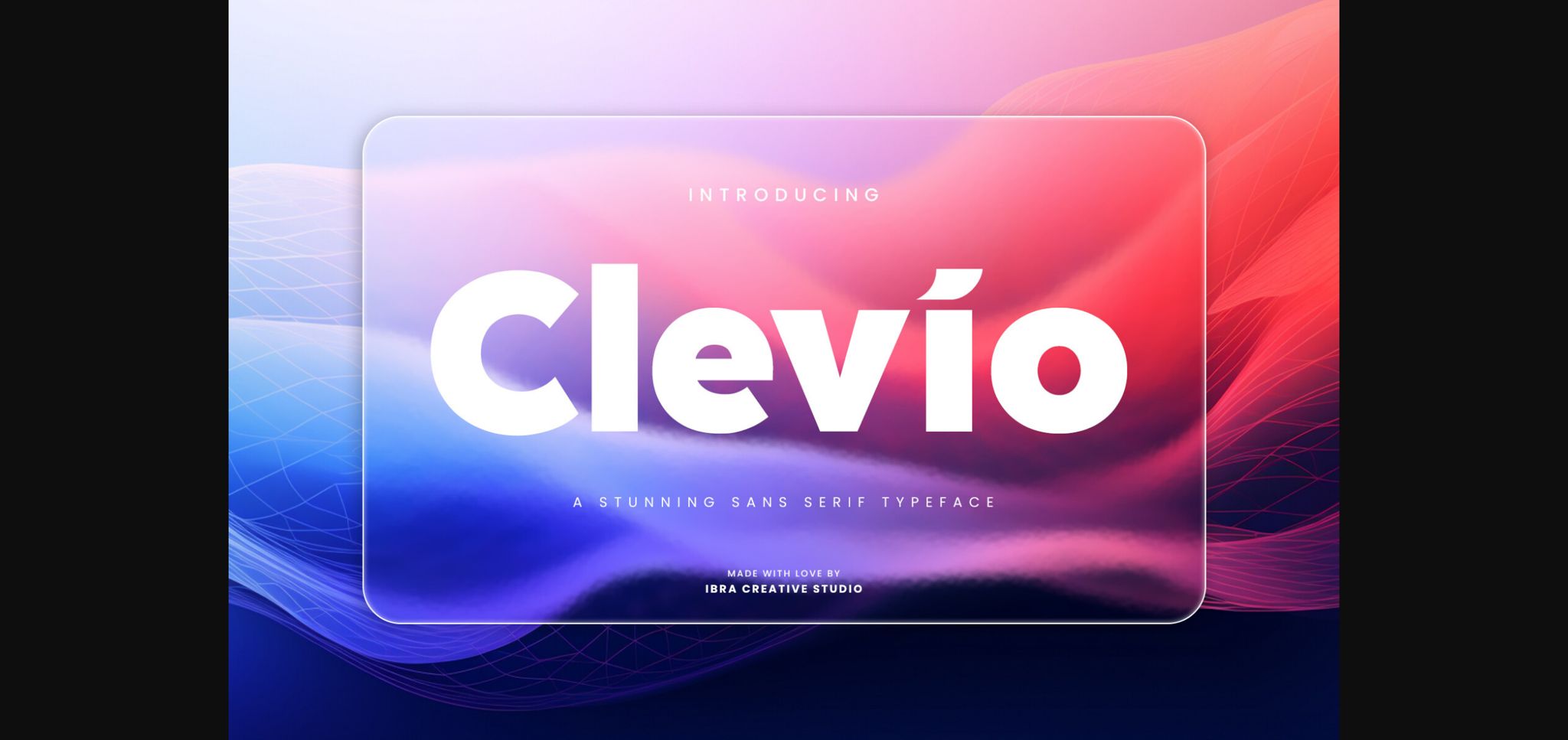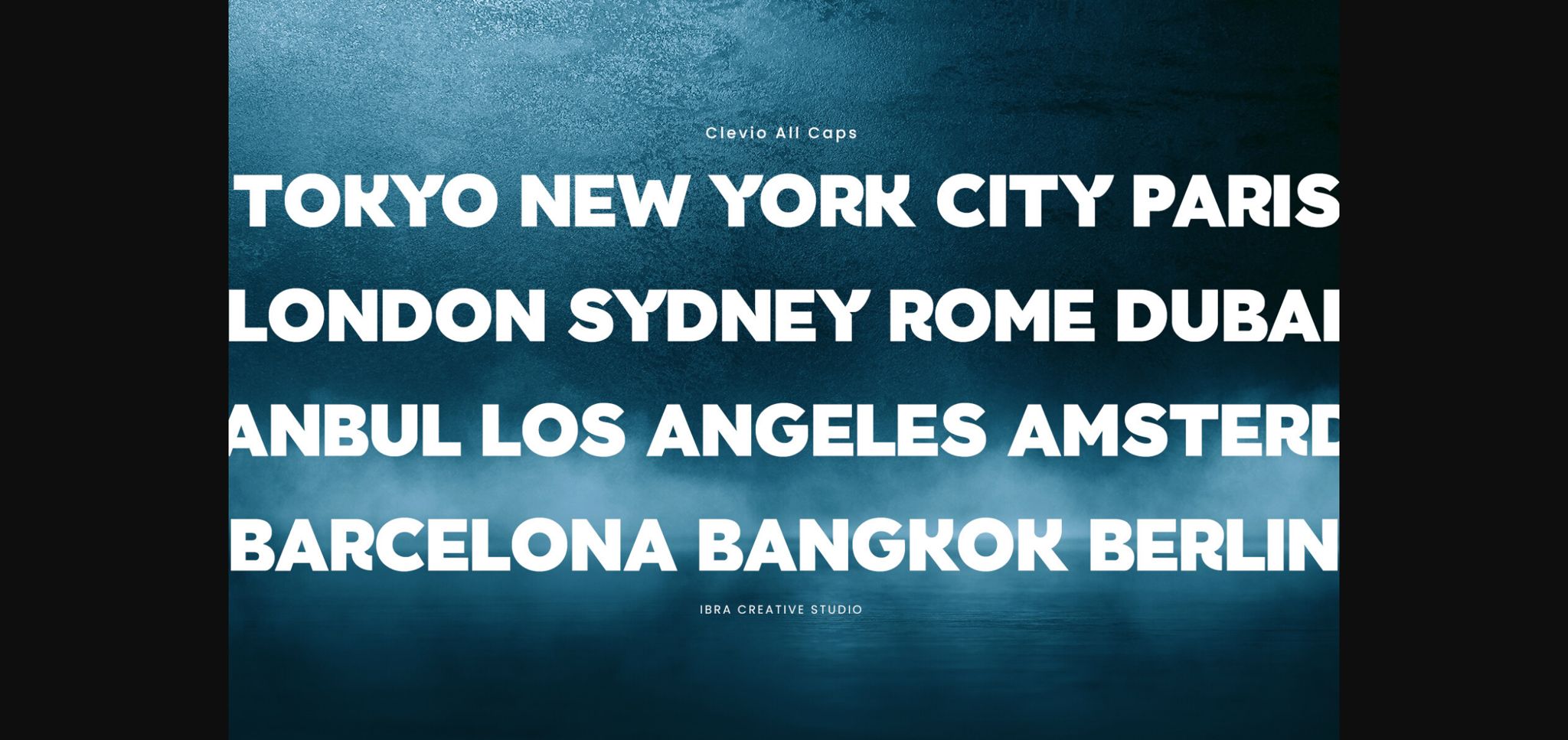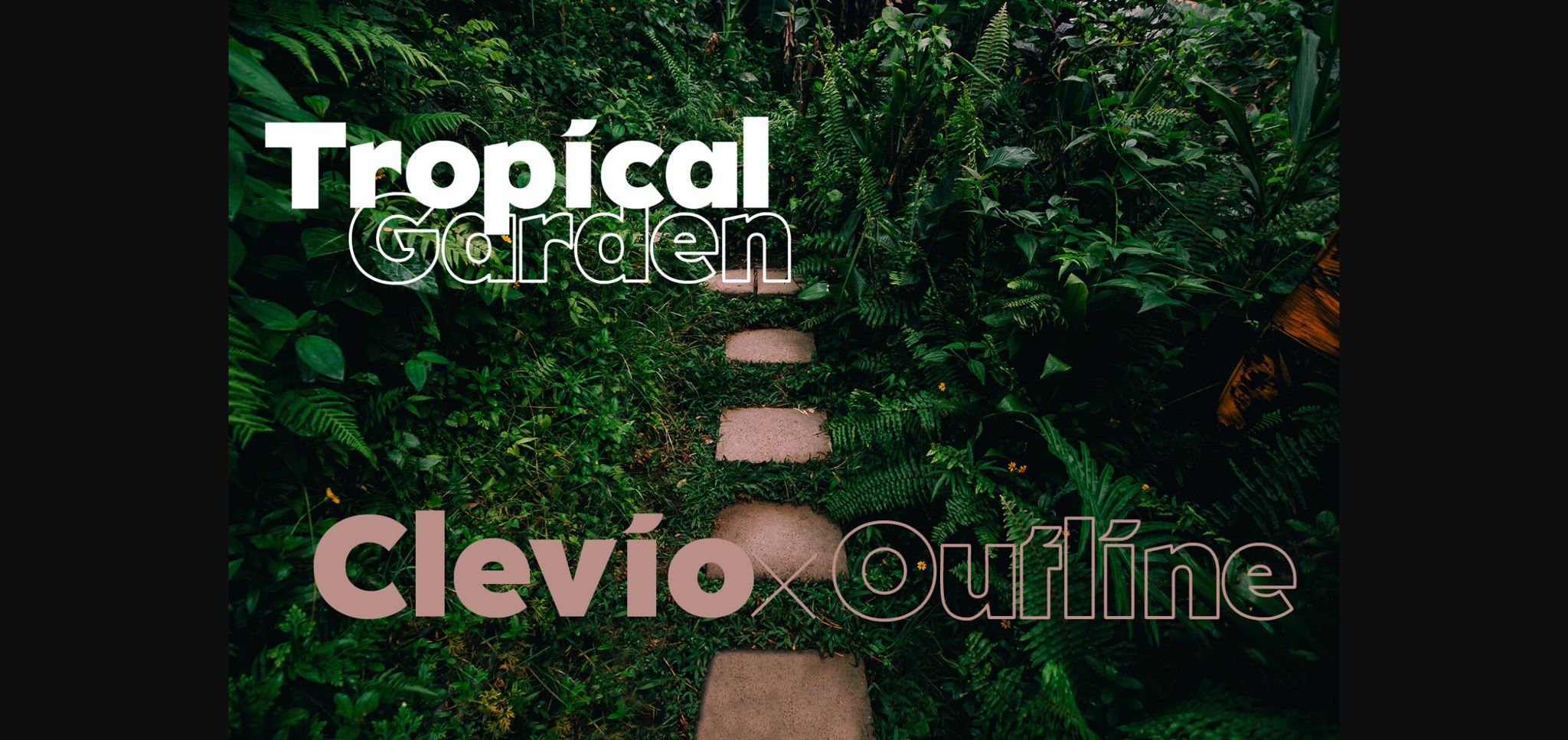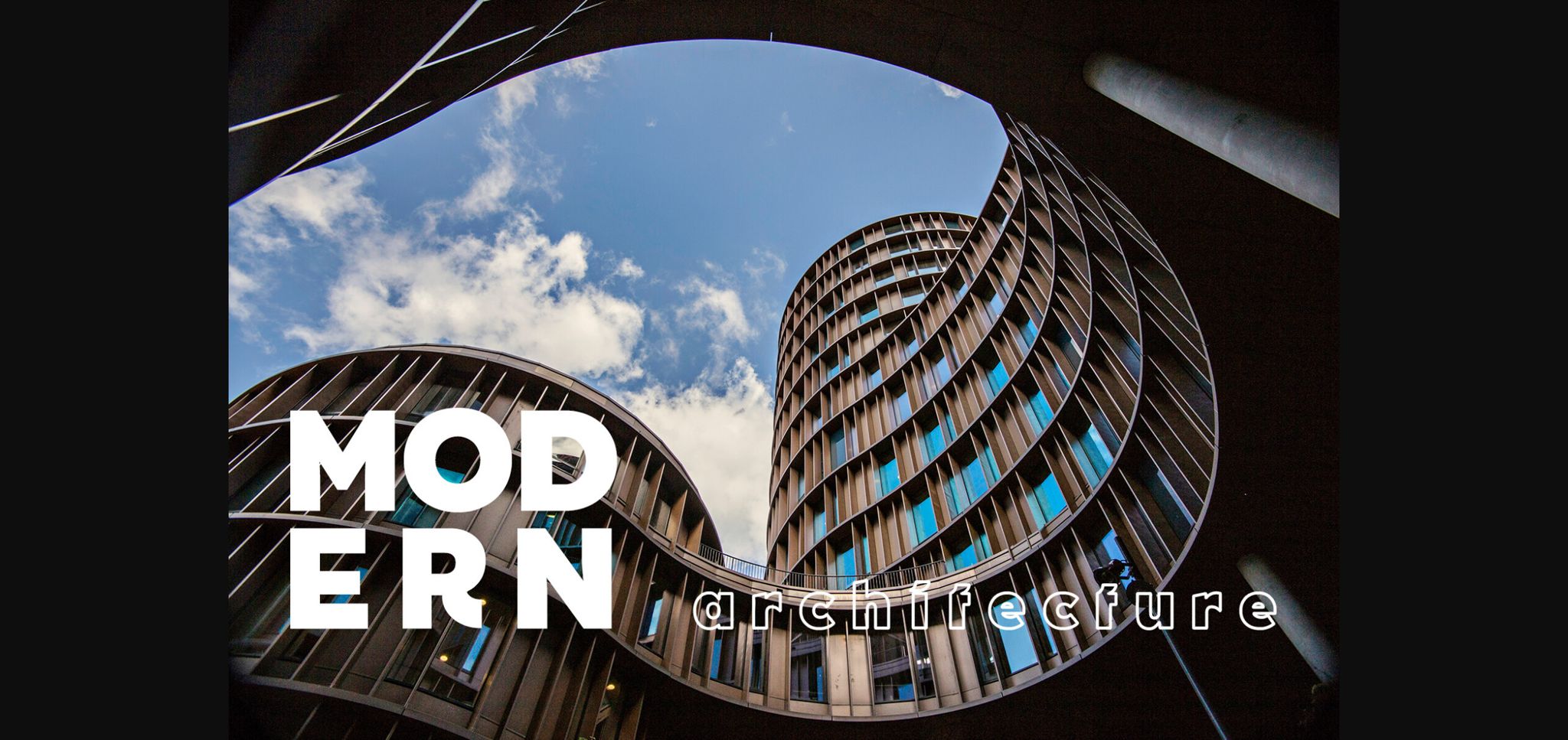
About Clevio Font
Clevio is a captivating sans-serif typeface that effortlessly balances modern elegance with timeless sophistication. Its graceful letterforms exude a sense of refined simplicity, boasting clean, unadorned lines that convey a contemporary aesthetic while remaining versatile for a wide range of design applications.